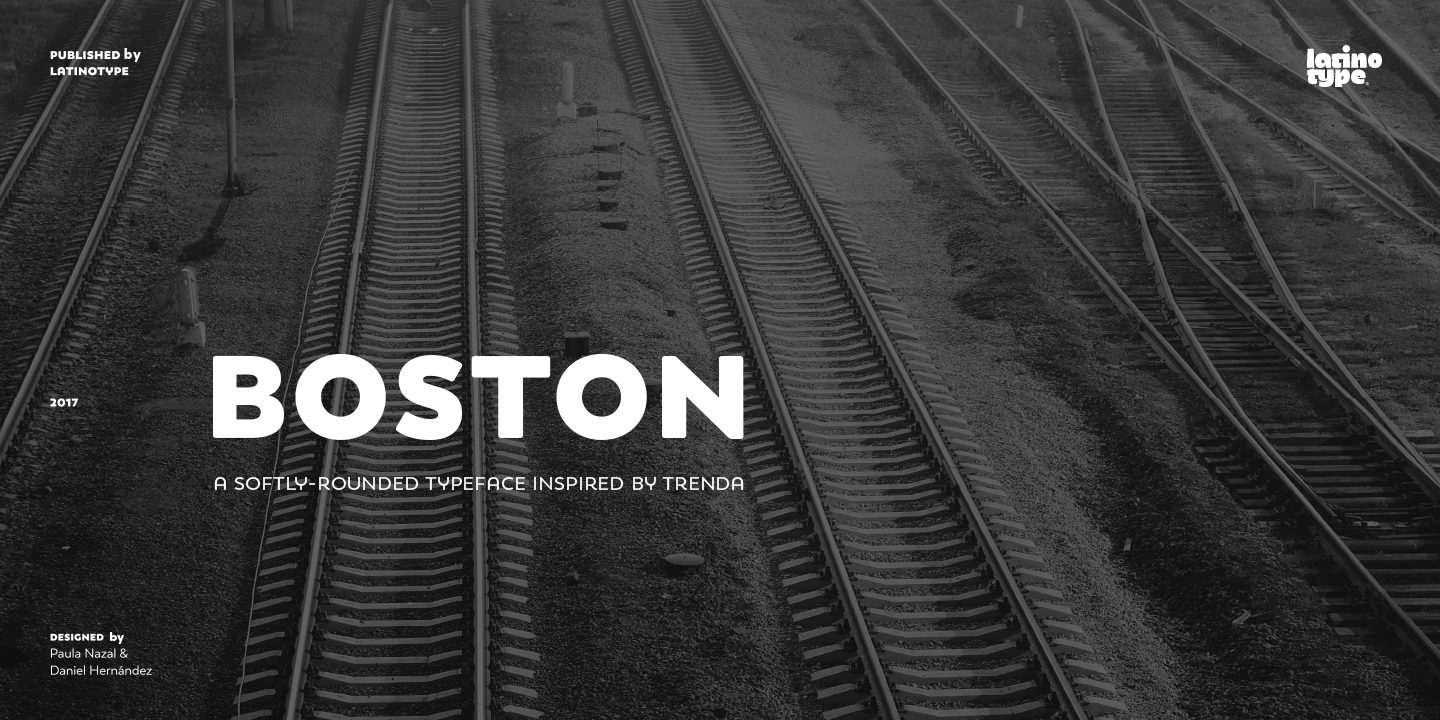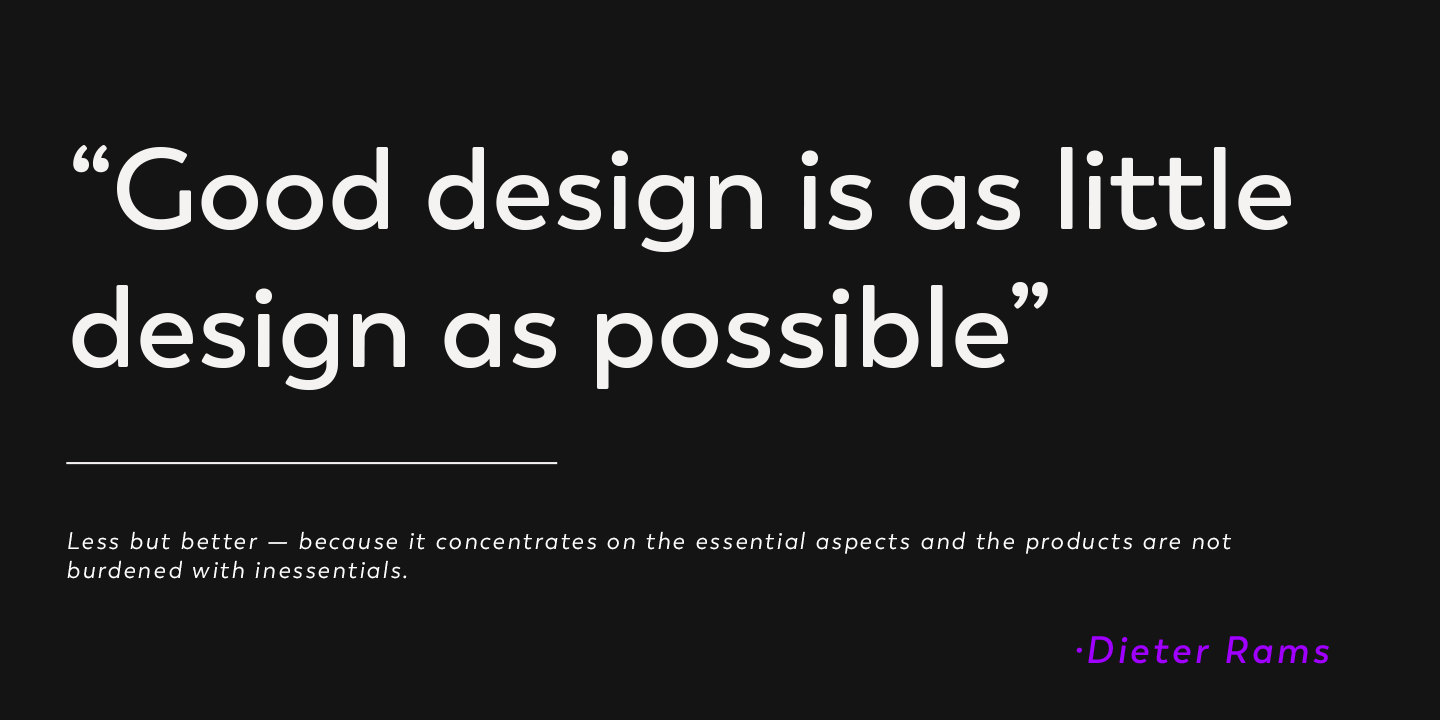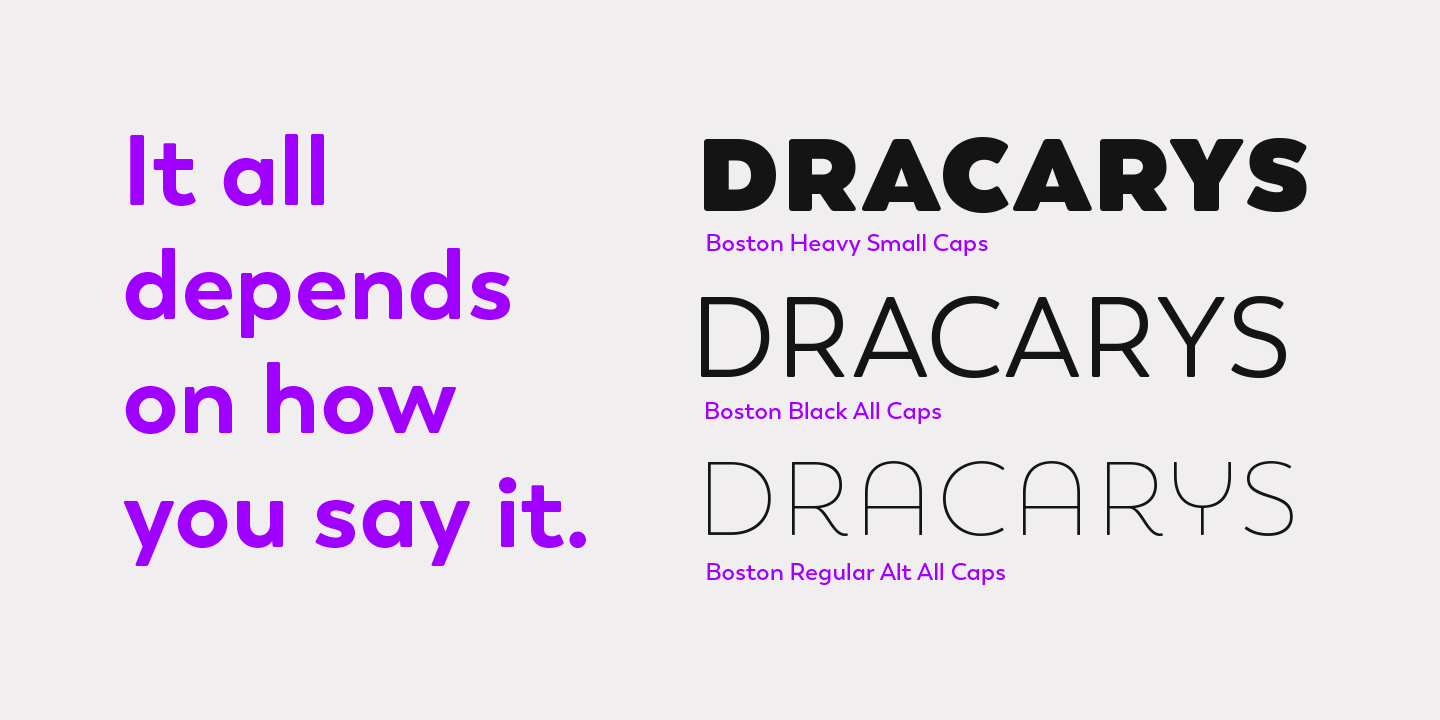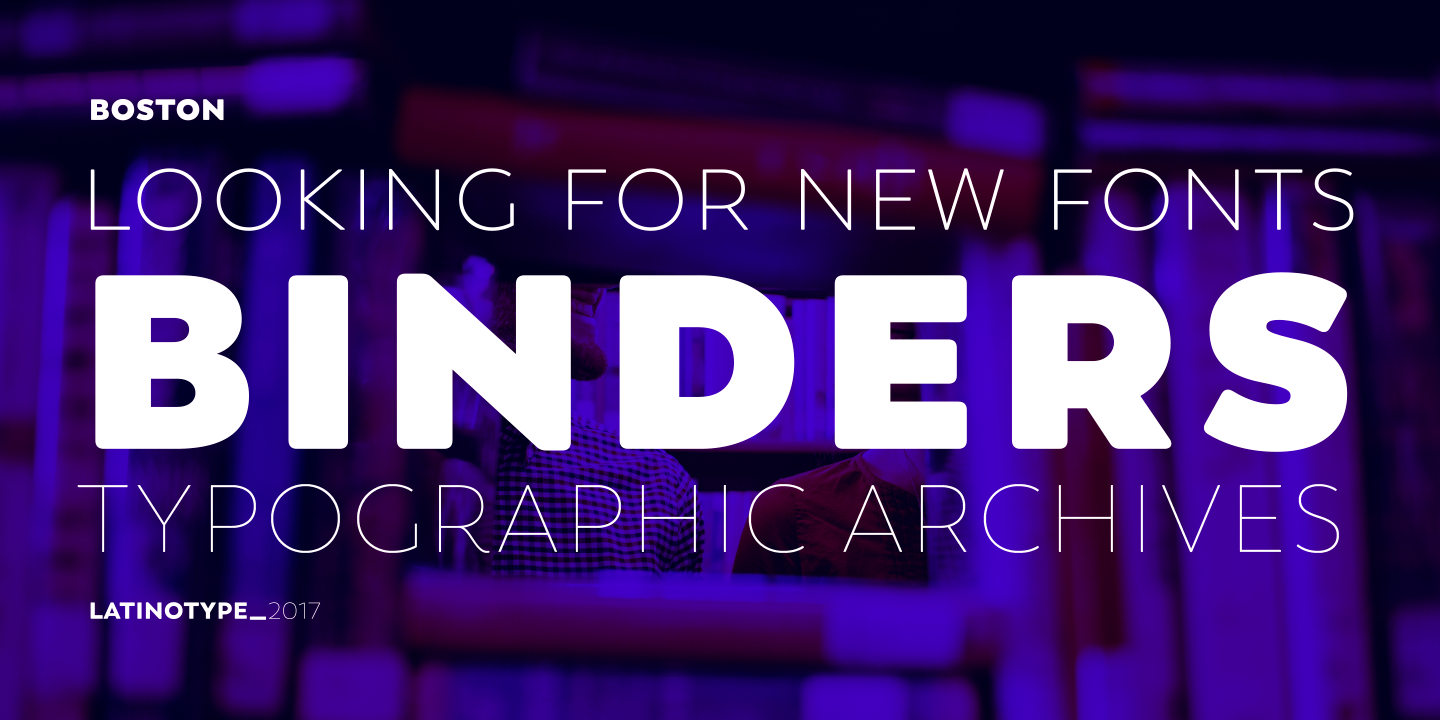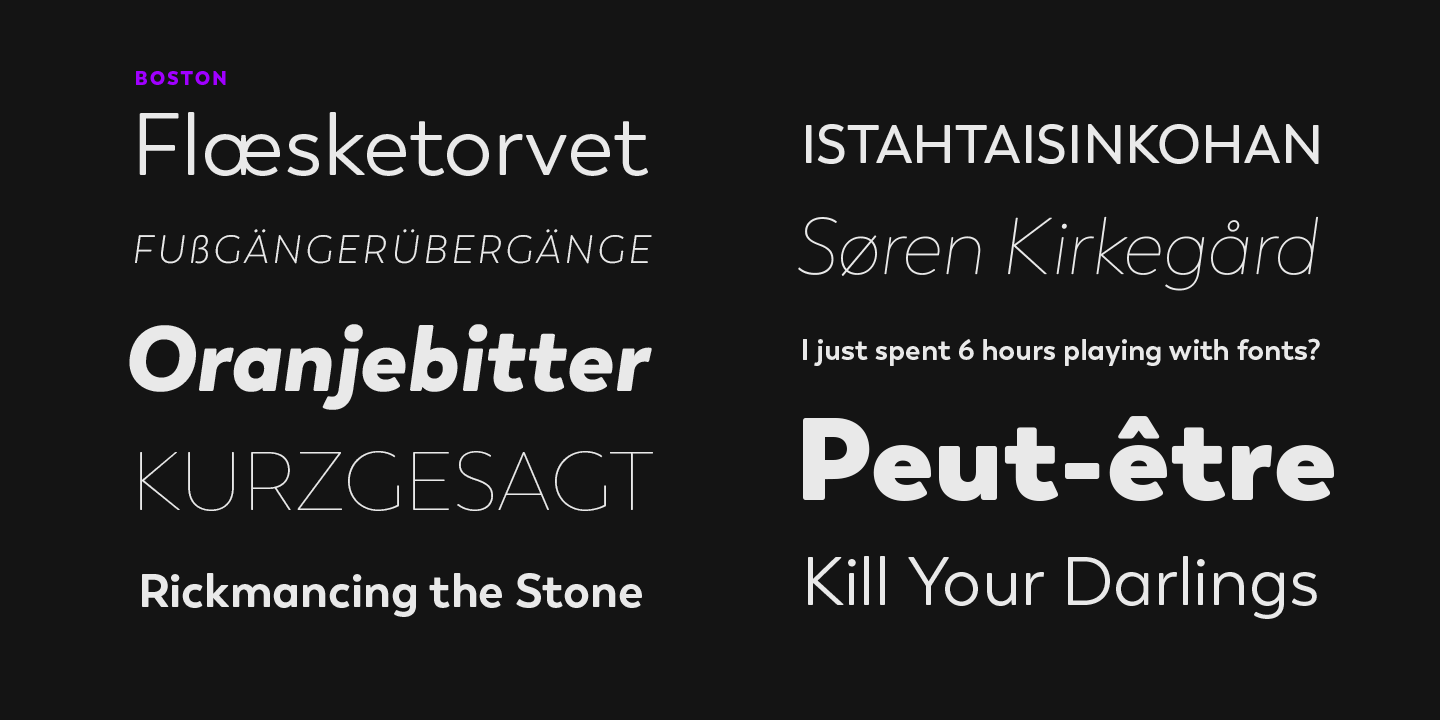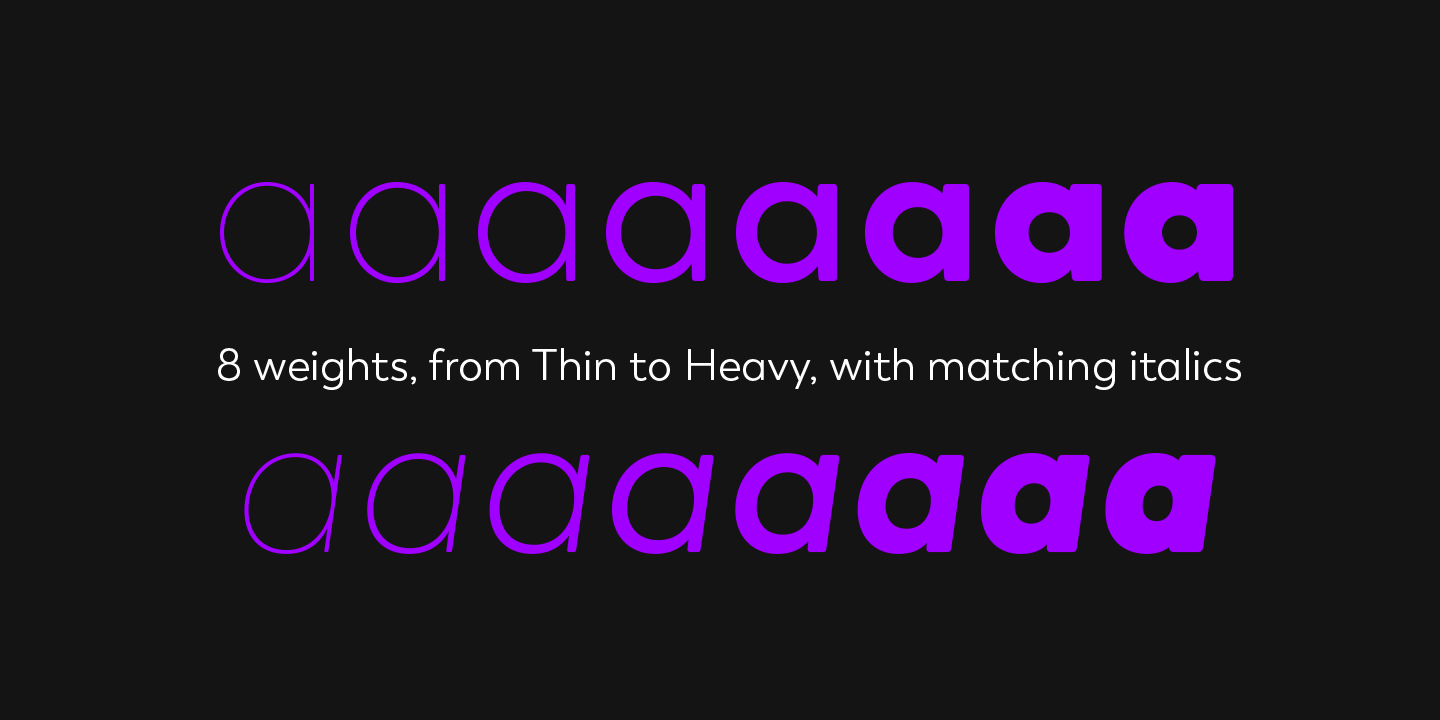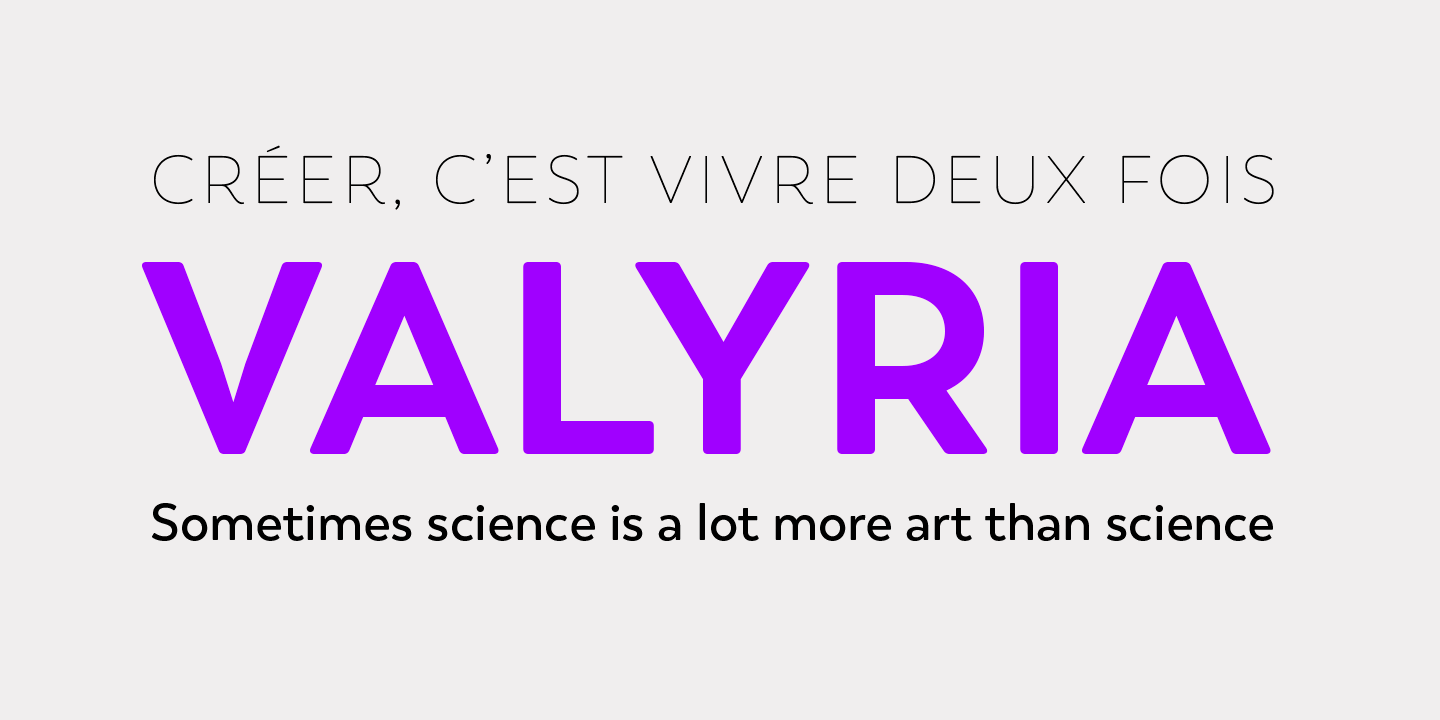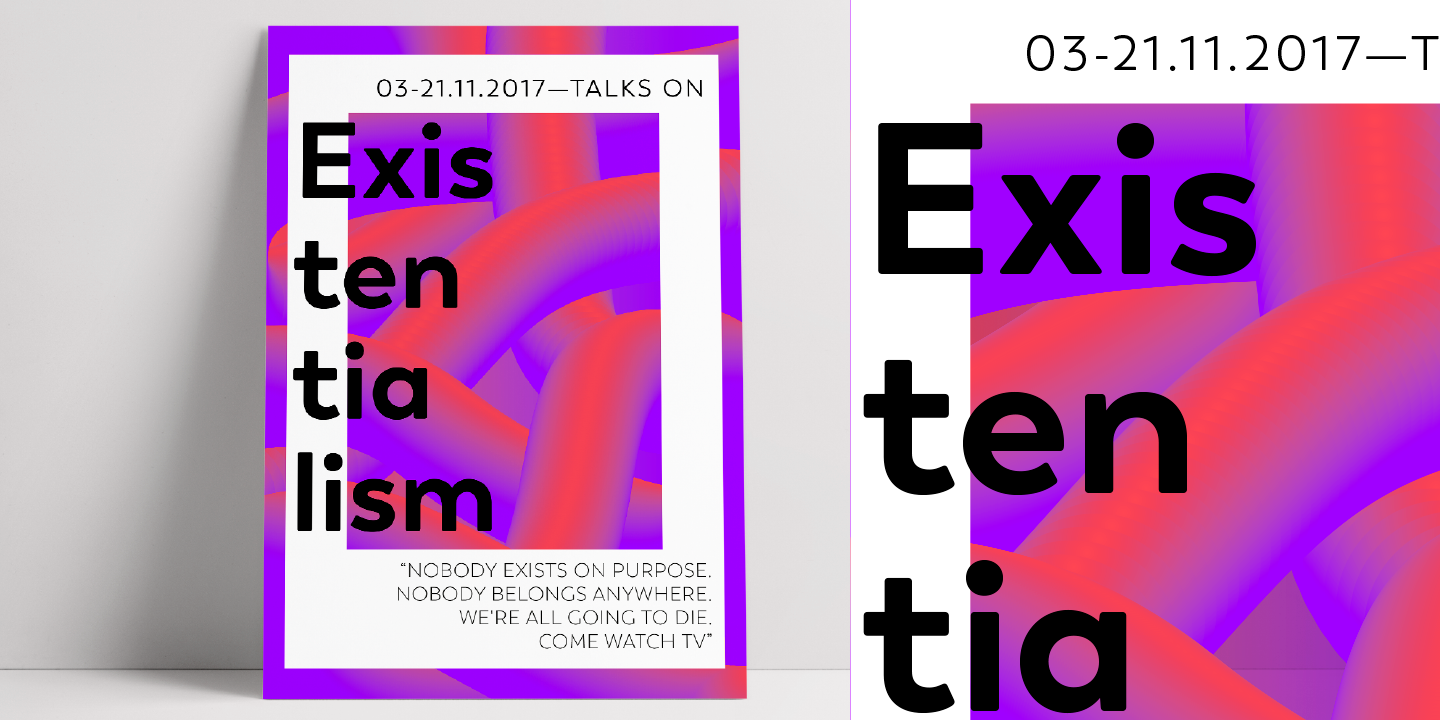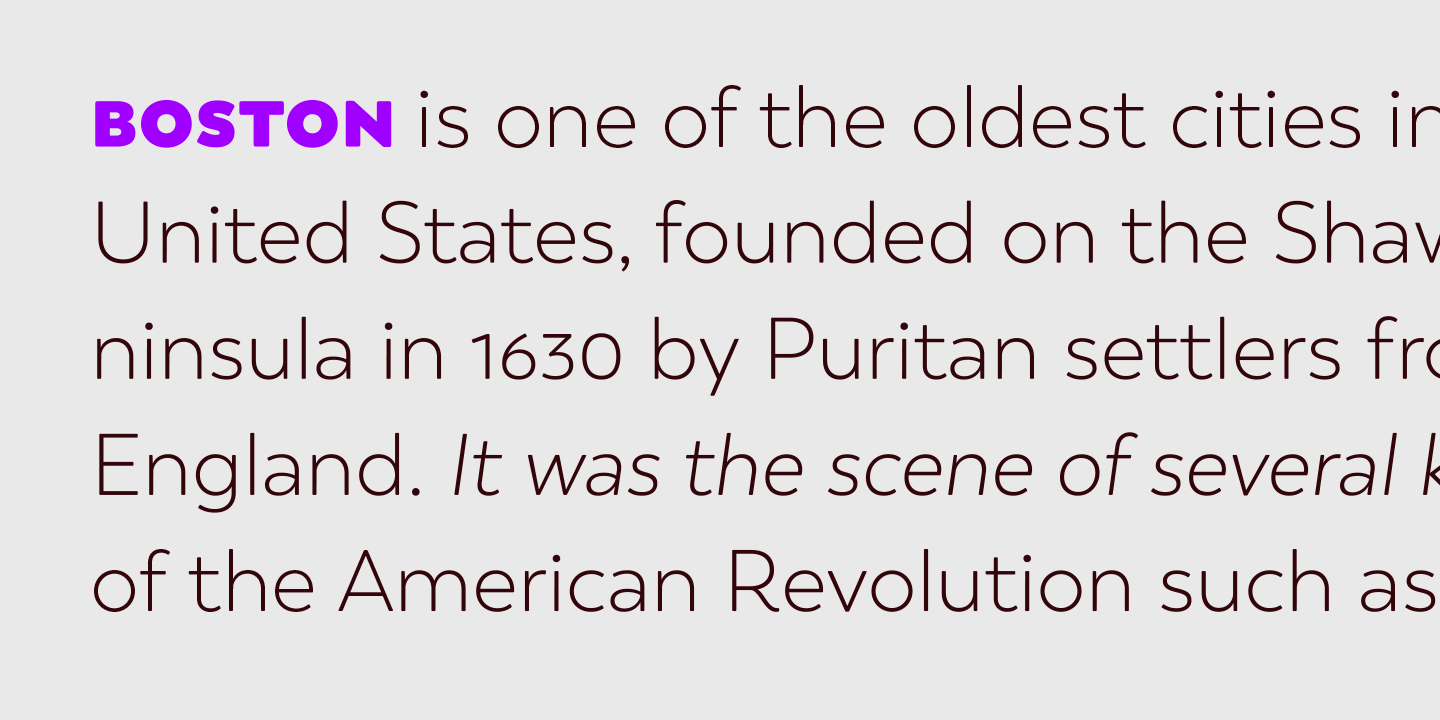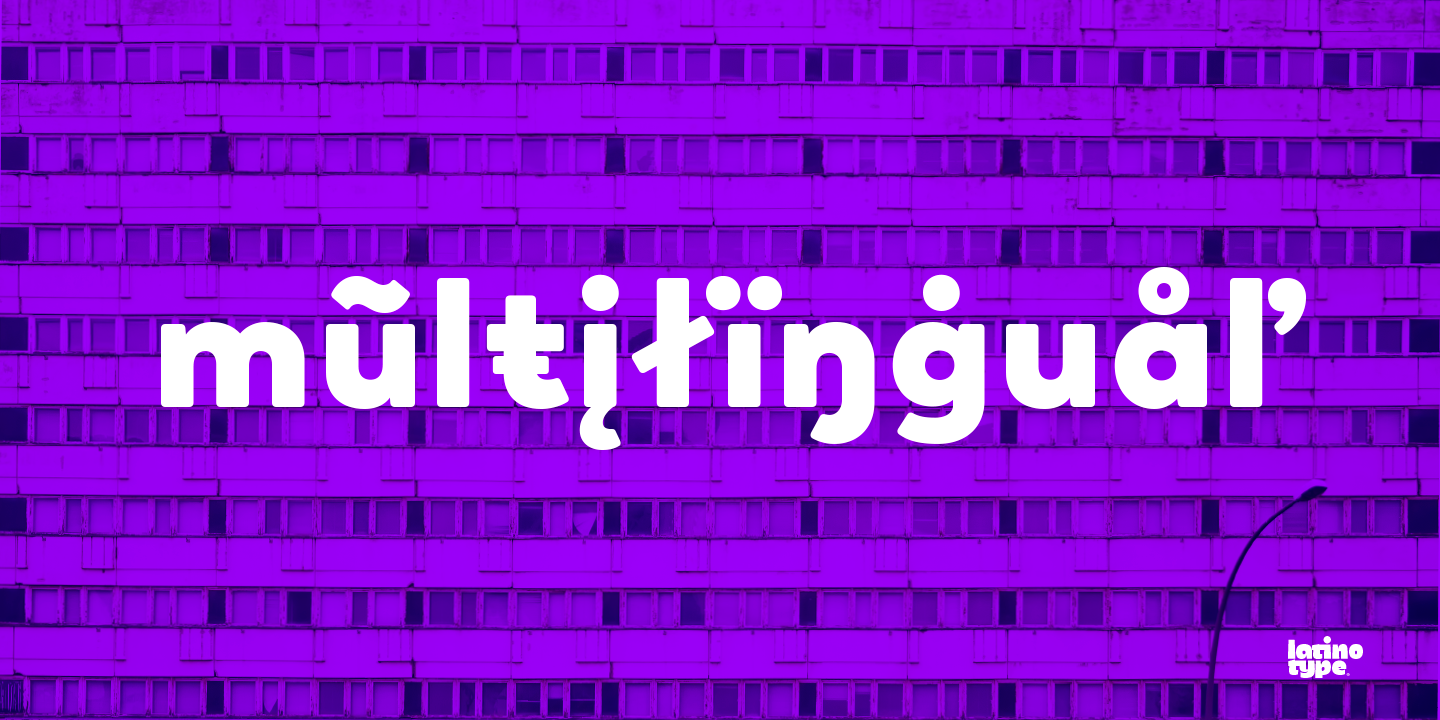
Boston is a slightly rounded-edged typeface, which is inspired by “Trenda”—a geometric sans serif based on the uppercase of “Trend”(a Latinotype font, released in 2013, that was very well received). This new typeface comes with a wider character set that offers a complete family of uppercase and lowercase in different weights.
Boston is a versatile easy-to-use functional display font with a strong personality, especially its uppercase, which makes the designer’s work easier.
Boston’s lightest and heaviest variants are ideal for display use while its middle weights work well with short and mid-length texts. This typeface has been designed especially for corporate projects, logotypes and publishing.
Boston comes in 8 weights, ranging from Thin to Heavy, and includes matching italics as well as small caps and alternates. The family contains a 634-character set that supports 206 different languages. Supported languages:
Ligatures, Small Caps, Alternates, Superscript